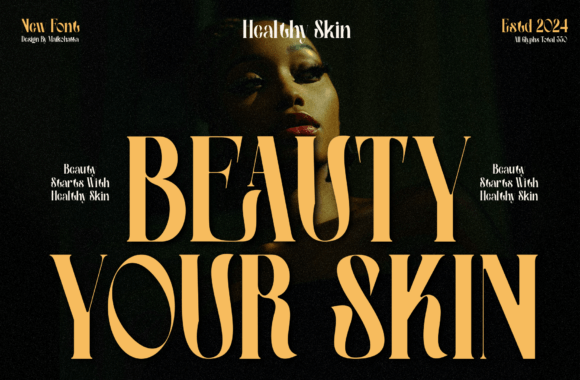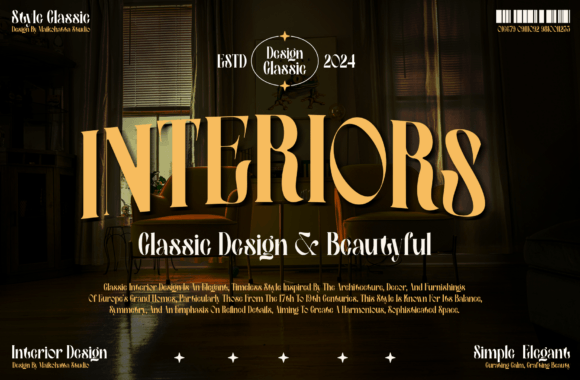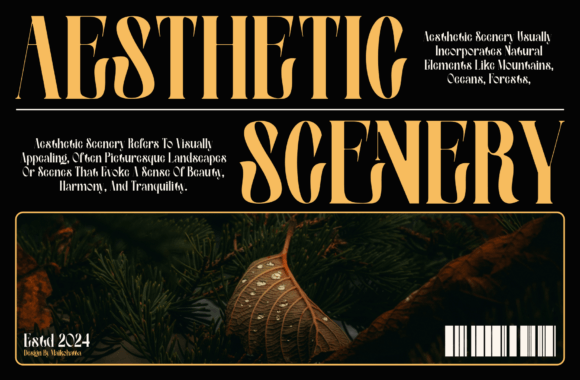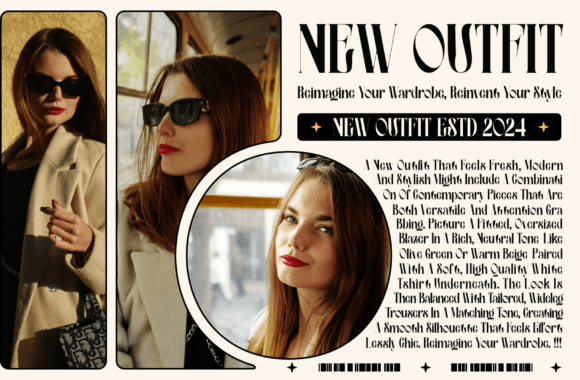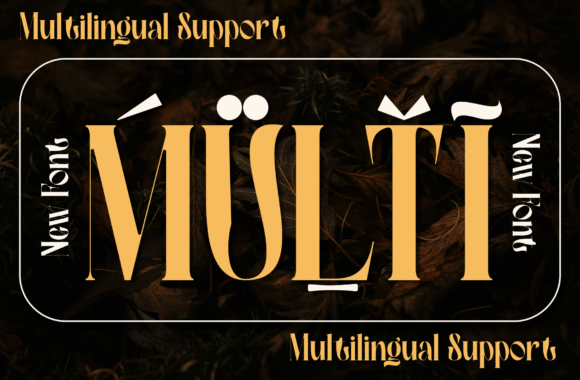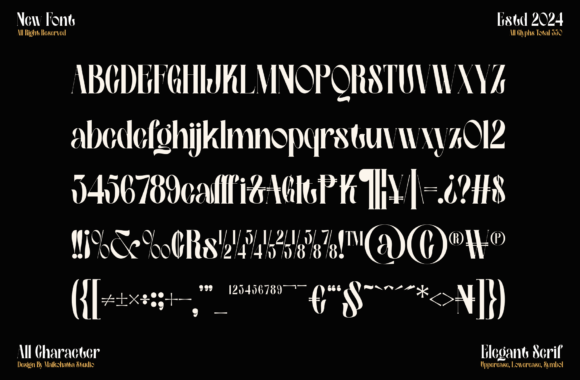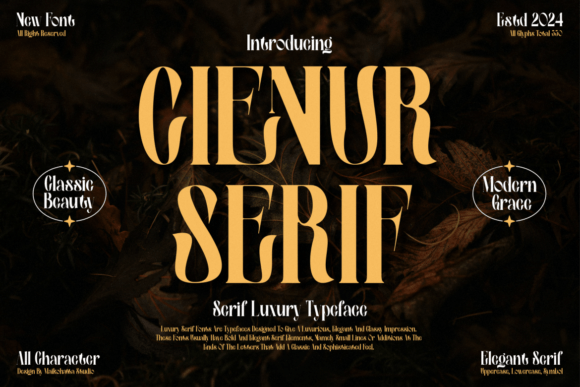
Introducing Cienur: The Epitome of Luxury Typography
In the realm of typography, the right font can elevate a design from mundane to magnificent. For those seeking to infuse their projects with a sense of luxury, elegance, and firmness, we are thrilled to introduce Cienur – a Serif Luxury Typeface that redefines the art of lettering.
The Essence of Cienur
Cienur is not just a font; it’s an experience. This meticulously crafted typeface is designed to evoke a sense of opulence and sophistication, making it perfect for high-end branding, editorial design, and any project that demands a touch of class. The hallmark of Cienur lies in its balanced design elements, which include:
- Balanced Thin and Thick Lines: The contrast between thin and thick lines in Cienur creates a dynamic visual interest, adding depth and character to any text.
- Gentle Curves: The subtle curves in the letters of Cienur contribute to its elegant feel, making it a pleasure to read and behold.
- Elegant and Clean Serifs: The serifs in Cienur are designed to be both refined and functional, providing a crisp finish to each character.
- Sharp Corners and Fine Details: The attention to detail in Cienur is evident in its sharp corners and the fine lines that make up each character, resulting in a highly aesthetic impression.
Crafting Elegance with Cienur
For designers and crafters, finding the right typeface can be a daunting task. Cienur is more than just a pretty font; it’s a tool that can transform your designs. Whether you’re working on a luxury brand’s logo, a high-end fashion magazine, or an elegant wedding invitation, Cienur provides the perfect blend of style and readability.
One of the standout features of Cienur is its versatility. This font can be used across a wide range of applications, from:
- Branding: Create a lasting impression with a logo that exudes luxury and elegance.
- Editorial Design: Elevate your magazine, newspaper, or book with a sophisticated typeface.
- Advertising: Stand out in the crowded world of advertising with a font that commands attention.
- Packaging: Add a touch of luxury to your product packaging.
Why Choose Cienur?
In a world where first impressions matter, Cienur offers a distinct advantage. Here are a few reasons why Cienur should be your go-to typeface:
- Unique Design: Cienur’s unique blend of traditional and modern design elements sets it apart from other serif fonts.
- High Readability: Despite its luxurious feel, Cienur remains highly readable, making it suitable for body text as well as headlines.
- Customizable: With a range of weights and styles, Cienur can be tailored to fit your design needs.
Cienur is more than just a font – it’s a statement. It’s a declaration of elegance, a nod to sophistication, and a testament to the power of typography in design. Whether you’re a seasoned designer or a crafty DIY enthusiast, Cienur offers the tools you need to create something truly special. Join the ranks of designers who have already discovered the beauty of Cienur. Elevate your designs, impress your audience, and make a lasting impact with Cienur – the Serif Luxury Typeface.